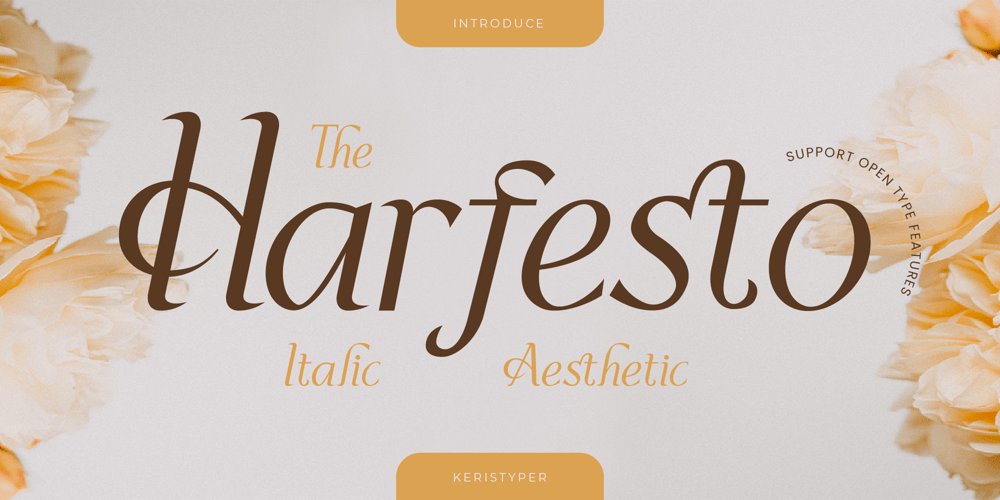
Harfesto Font Family was designed by Tezar Tantular and published by Keristyper Studio. Harfesto contains 1 styles and family package options. Harfesto is an elegant glamour and stylish italic serif with modern classy and feminine characteristic. This font is good for logo design, Social media, Movie Titles, Books Titles, short text even long text letters, and good for your secondary text font with the script, sans, or serif.Featured: Standard Uppercase & Lowercase Numeral & Punctuation Multilingual : ä ö ü Ä Ö Ü ß ¿ ¡ Alternate & Ligature PUA encoded We recommend programs that support the OpenType feature and the Glyphs panel such as Adobe applications or Corel Draw. so you can use all the variations of the glyphs.Hope you enjoy our fonts!